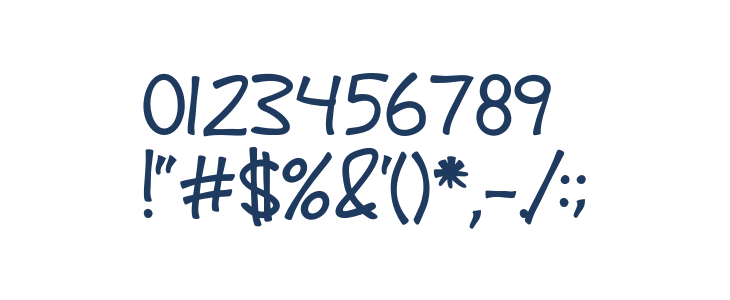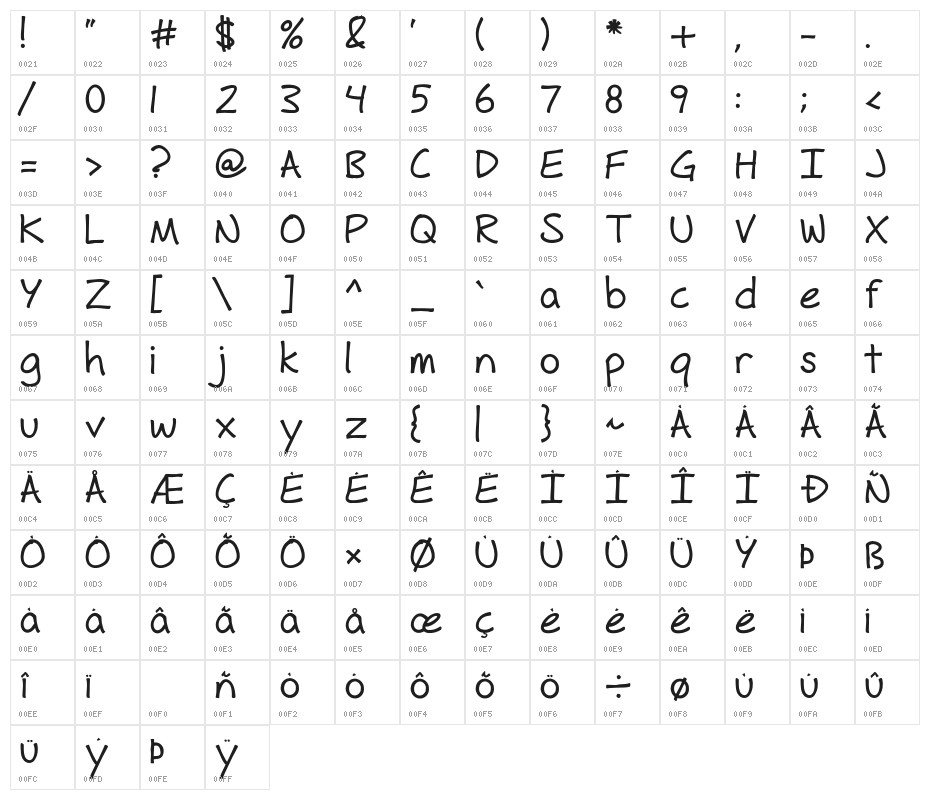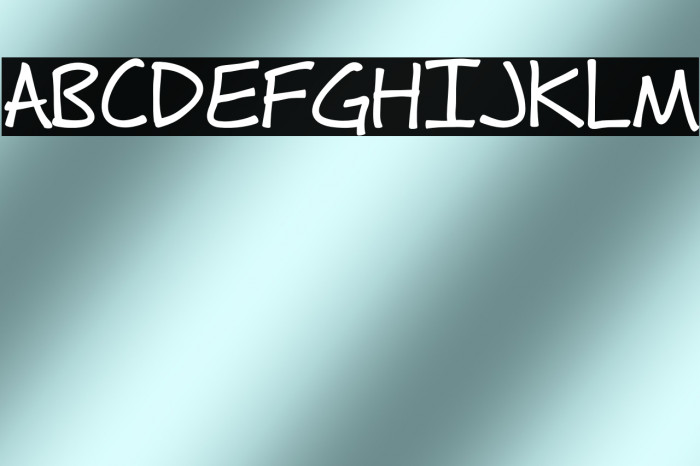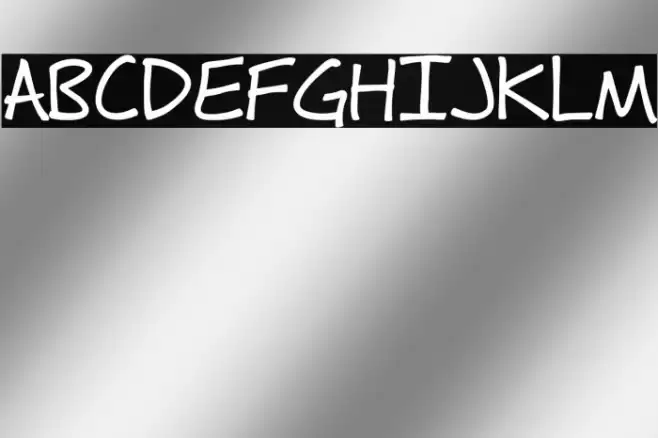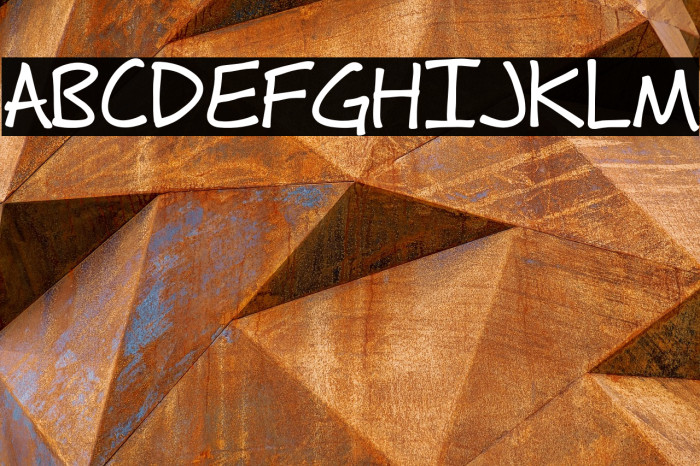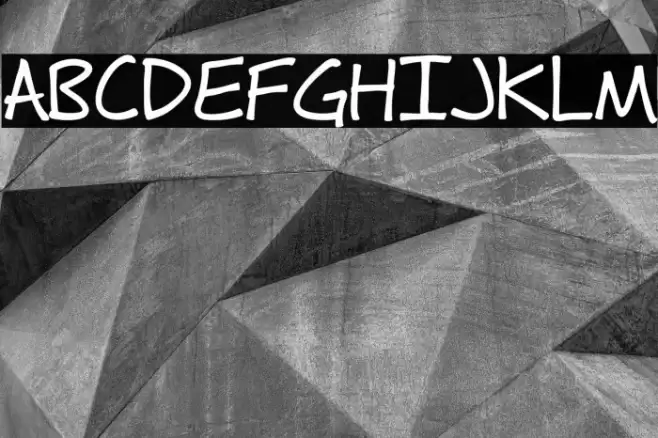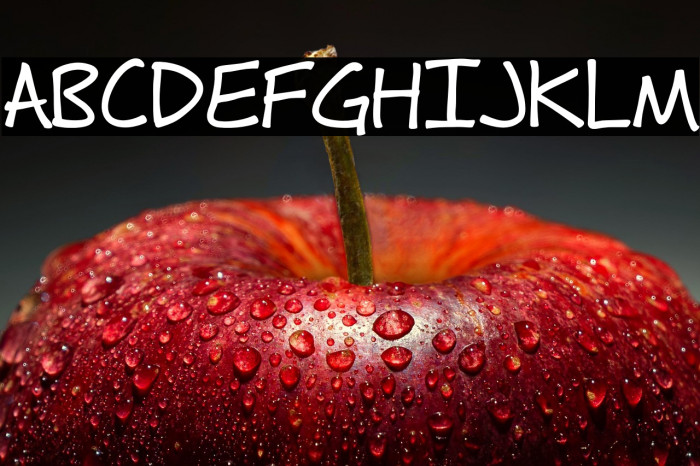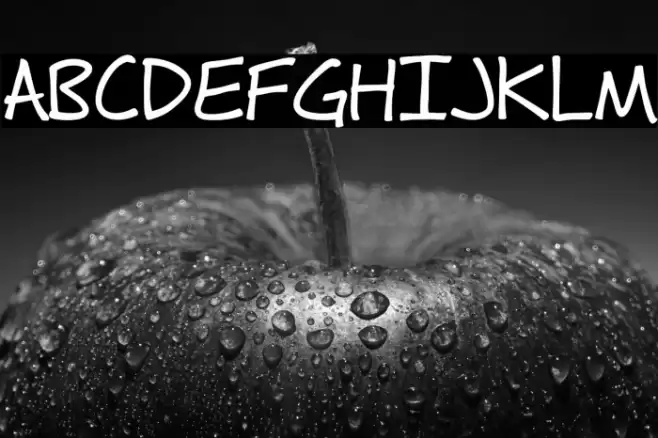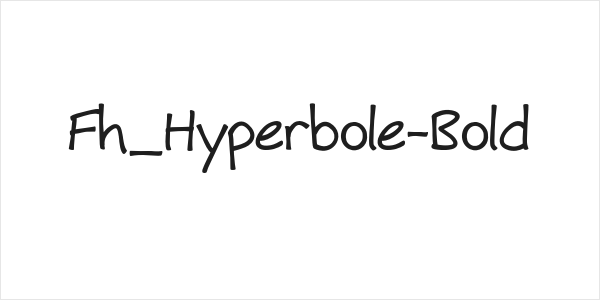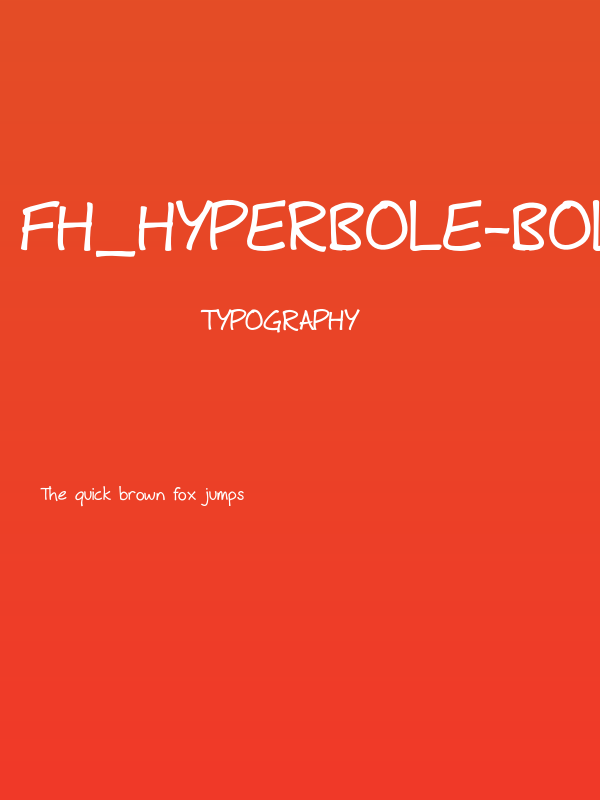
Fh_Hyperbole-Bold Font
Fh_Hyperbole-Bold Description
This font features a playful and informal handwritten style, characterized by its bold and slightly irregular strokes. The letters have a casual, friendly appearance, with rounded edges and a slight slant that adds to its dynamic feel. The uppercase and lowercase letters maintain a consistent style, with the uppercase being slightly larger and more pronounced. Numbers and special characters follow the same playful aesthetic, making the font versatile for various uses. Its boldness ensures readability while maintaining a unique, personal touch.
| Proposed Projects | Ideal for children's books, casual branding, greeting cards, and playful social media graphics. |